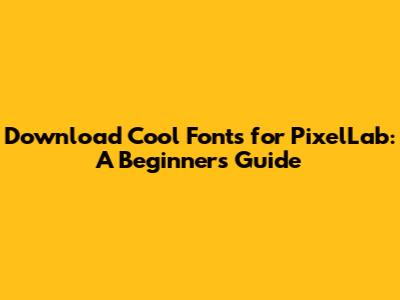
- Google Fonts: This is a great place to start! Google Fonts is a massive, free library of fonts, and it’s super easy to use. The fonts are open-source, which means you can use them for commercial projects without any licensing issues. Plus, you can easily download them in the necessary format for PixelLab.
- DaFont: DaFont is another hugely popular website, known for its vast collection of fonts. You can find fonts in every style imaginable, from classic serifs to quirky handwritten styles. Be sure to check the license for each font before using it for commercial purposes, though.
- Font Squirrel: Font Squirrel offers high-quality fonts that are free for commercial use. It's a great resource for finding fonts that you can use confidently in your projects.
- BeFonts: Here, you'll find a wide range of fonts, from modern to vintage styles. It's another good option for discovering unique fonts to give your designs an edge.
- 1001 Fonts: This website is easy to navigate, with a wide variety of fonts organized by category. It offers a good mix of free and premium fonts.
- Choose Your Font: Browse the websites mentioned above (or any other font sites you like) and find the font you love. Once you find a font, click on the "Download" button. This will usually download a ZIP file containing the font files.
- Unzip the File: Once the file has downloaded, you'll need to unzip it. Locate the ZIP file in your downloads folder and tap on it. Most smartphones will have a built-in unzipping tool, or you can download a file manager app like "ZArchiver" or "Files by Google" to help you.
- Find the Font Files: After unzipping, you'll typically find one or more font files. These files will usually have extensions like .ttf (TrueType Font) or .otf (OpenType Font). These are the files you’ll be importing into PixelLab.
- Save the Font Files: Make sure to remember where you saved these font files, as you'll need to find them again when you're importing them into PixelLab. Usually, it's best to put them in a folder you can easily access, such as your downloads or a dedicated fonts folder.
- Open PixelLab: Launch the PixelLab app on your Android or iOS device.
- Add Text: Create a new text box or tap on an existing one you want to edit.
- Access the Font Options: In the bottom menu, scroll to the "Font" option and tap on it. You can also tap the "A" icon and find the font options. This will open the font selection panel.
- Go to "My Fonts": In the font selection panel, you'll see options for system fonts and custom fonts. Look for a tab or button labeled "My Fonts" and tap on it. This is where you’ll add your downloaded fonts.
- Add Your Fonts: Inside the "My Fonts" section, you'll see a plus icon. Tap this icon. This will allow you to add the font you just downloaded. You'll then be able to browse through your device’s storage to find the folder where you saved your font files (.ttf or .otf).
- Select Your Font Files: Navigate to the folder where you saved your font files, select the font file, and tap on it. You can select single files or multiple fonts simultaneously to install them. The fonts you chose will now appear in your "My Fonts" section.
- Use Your New Fonts: Now, when you select the text, you'll see your newly installed fonts in the font options. Tap on them, and watch your text transform! Now you can easily use those new fonts in your designs. Give it a try, experiment with different fonts, and let your creativity run wild!
- Font Not Appearing: If your font doesn't show up after installation, double-check that you've selected the correct font file (.ttf or .otf) and that the file is not corrupted. Make sure you’re looking in the “My Fonts” tab in PixelLab. Try closing and reopening the app. Sometimes a restart can fix the problem.
- Font Displaying Incorrectly: Some fonts, especially complex ones, may not render perfectly. This is usually due to compatibility issues. Try different font files or alternative versions if available. If a font is displaying incorrectly, it may be due to how the font was designed or a compatibility issue with your device or PixelLab version.
- Font License Restrictions: Ensure that you have the right to use the font for your intended purpose (personal or commercial). Some fonts have license restrictions. Always read and comply with the license terms to avoid legal problems.
- Font Files Not Found: Make sure you remember where you saved your font files. You can avoid this by creating a dedicated folder for your fonts on your device. Keep the font files organized so you can easily find them when you need them.
- Choose Fonts That Complement Each Other: Don’t just pick any font; choose fonts that work well together. Consider pairing a strong header font with a more readable body font. Use a font pairing guide or website to find great combinations.
- Maintain Readability: Prioritize readability, especially when using your fonts for text-heavy designs. Avoid using overly ornate fonts for body text, as they can be difficult to read. Make sure your font size is appropriate for your design. Remember, the goal is to communicate your message effectively.